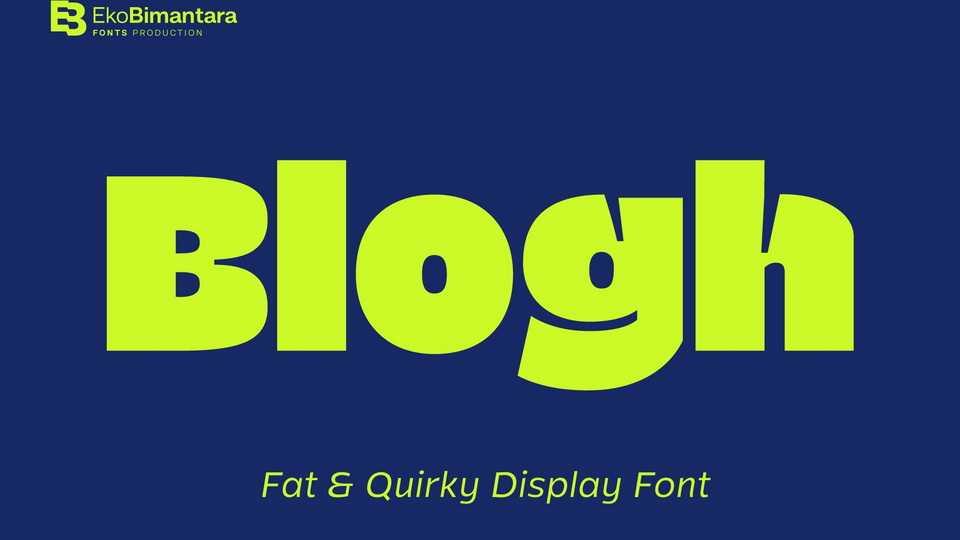
Download Blogh font, fat and quirky display typeface. Its heavy weight and sturdy letterforms with characterized by extreme artificial inktrap, make Blogh uniquely perfect for headlines and titles.